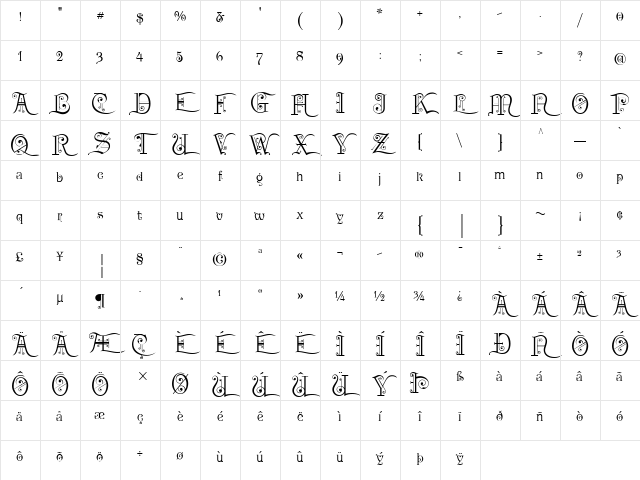
P22 Kilkenny Swash Eureka
Style: Swash Eureka
Foundry: International House of Fonts - P22 type foundry
Designer: Paul Hunt
Design Context for P22 Kilkenny
P22 Kilkenny flows with the natural rhythm of handwritten lettering, making it ideal for designs that call for warmth and personal expression.
Font Pairing: Combine P22 Kilkenny with a simple geometric sans for maximum contrast - the tension between flowing curves and clean structure is a classic typographic pairing.
Pro Tip: Use P22 Kilkenny for short runs of text - names, titles, or taglines. Extended body copy in script faces tires the eye quickly.